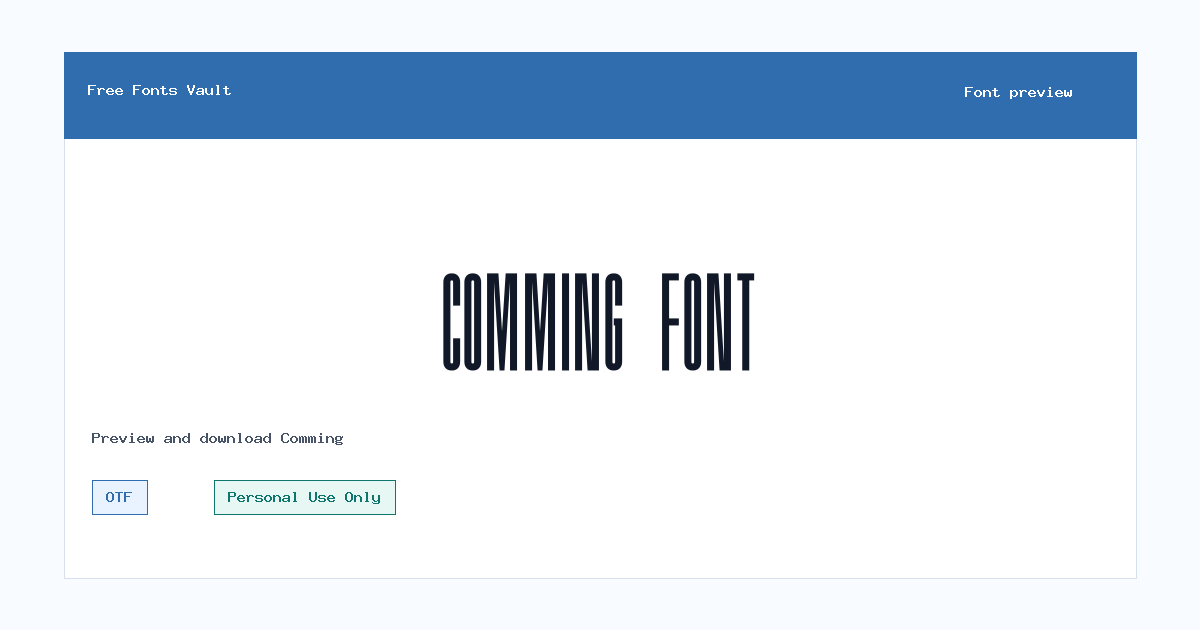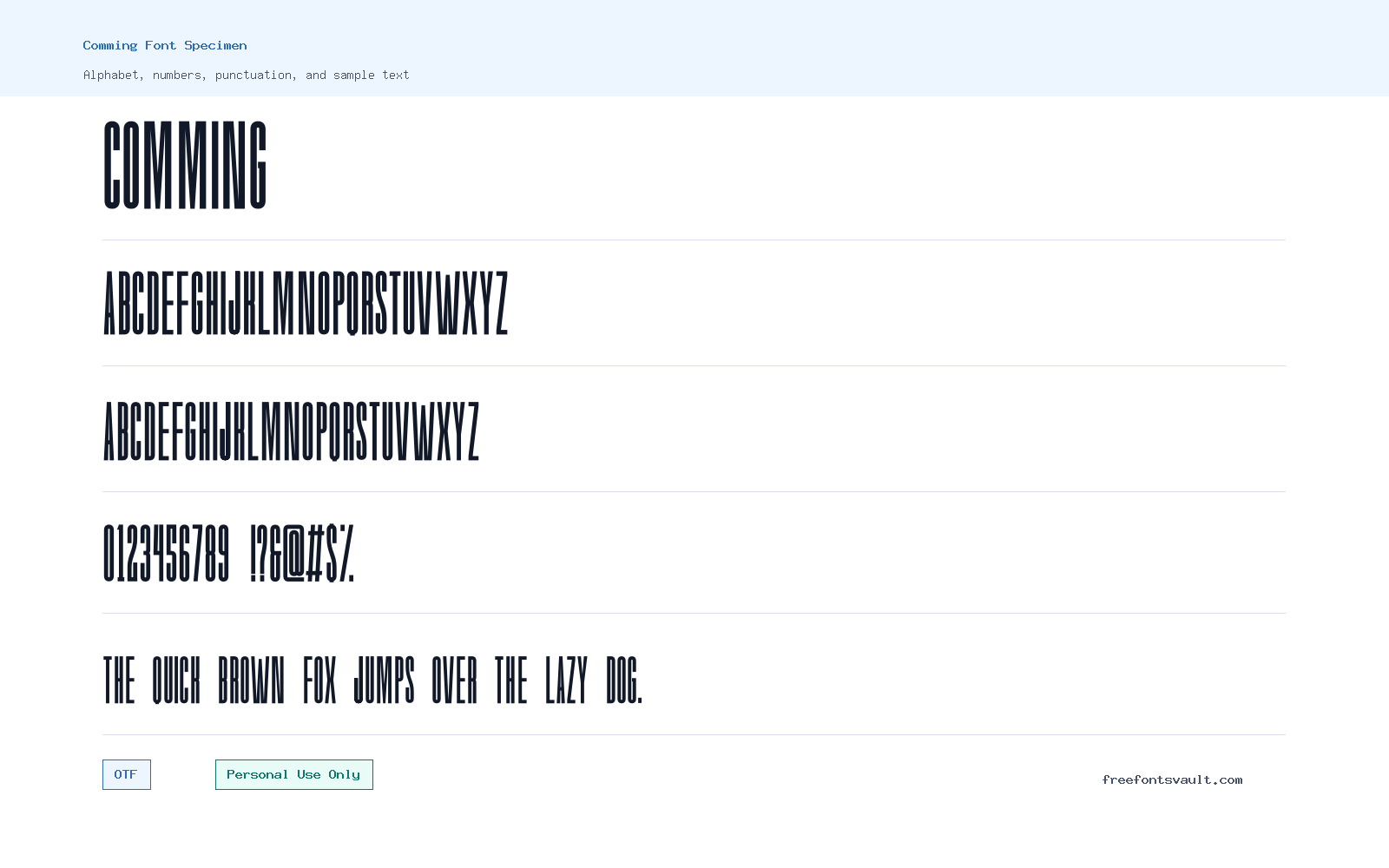
Comming
- Designer Muhammad Rizki Utomo
Comming font.
Comming is a sans serif font by Muhammad Rizki Utomo with a Personal Use Only license. It is a practical choice to preview when you need clean lettering for non-commercial design drafts, social graphics, headings, and concept work.
About Comming Font
Comming is listed as a sans serif font, which makes it a natural option to test for clear display text and modern-looking layouts. The downloadable file is an OTF font in a regular style with normal weight, so it is best approached as a single-style family rather than a large type system with multiple weights. That does not make it less useful, but it does mean the preview matters. Try your exact words in the font tester, especially if you are planning a logo sketch, poster title, YouTube thumbnail, packaging mockup, or web header. A single regular weight can work well when the layout does not need bold, italic, or extended hierarchy, but it may need help from size, spacing, color, and contrast.
- Sans serif classification, suitable for previewing in clean headings, short titles, and modern layout drafts.
- Normal style and 400 weight, useful when you need an uncluttered regular-weight look.
- Works best in short text settings where spacing, size, and layout can create the needed emphasis.
- Personal logo concepts and name marks
- Poster titles and event mockups
- Social media graphics for non-commercial use
- Web design mockups and homepage hero headings
- Personal invitations, cards, and printable layouts
- Mood boards, typography studies, and student design exercises
Is Comming good for body text?
It is better to preview it first and use it mainly where it stays comfortable to read. Since only a regular style is listed, longer text may need a separate font with more weights and stronger small-size readability.
What should I pair with Comming?
Pair it with a simple, readable text face. A neutral sans serif can keep a clean modern feel, while a modest serif can add contrast for editorial or poster layouts.
Who designed Comming?
Comming is credited to Muhammad Rizki Utomo.